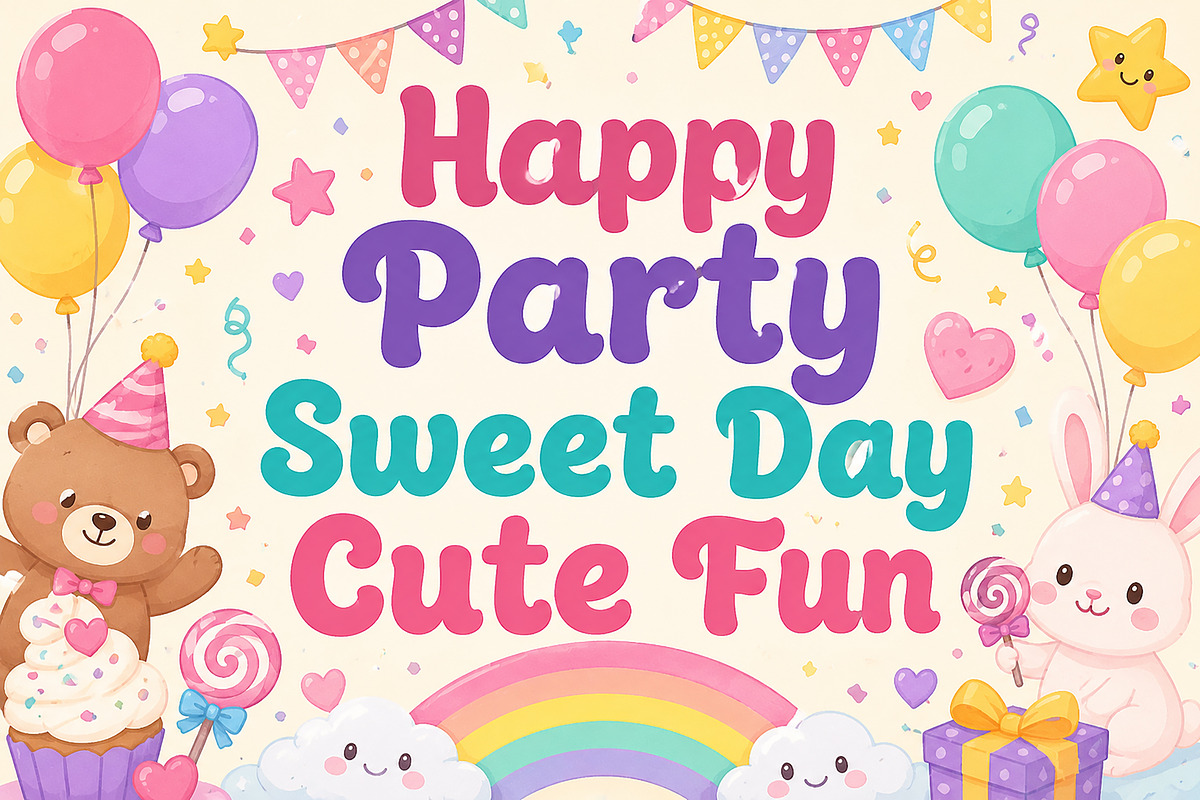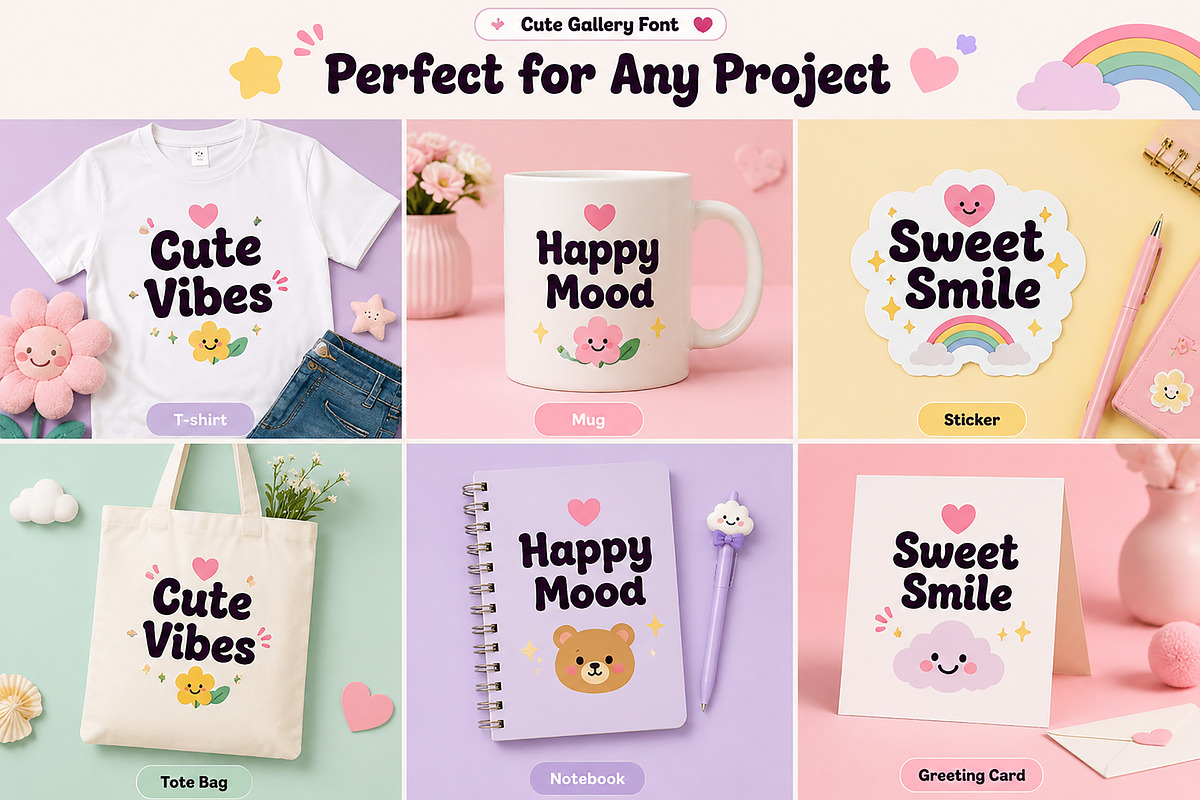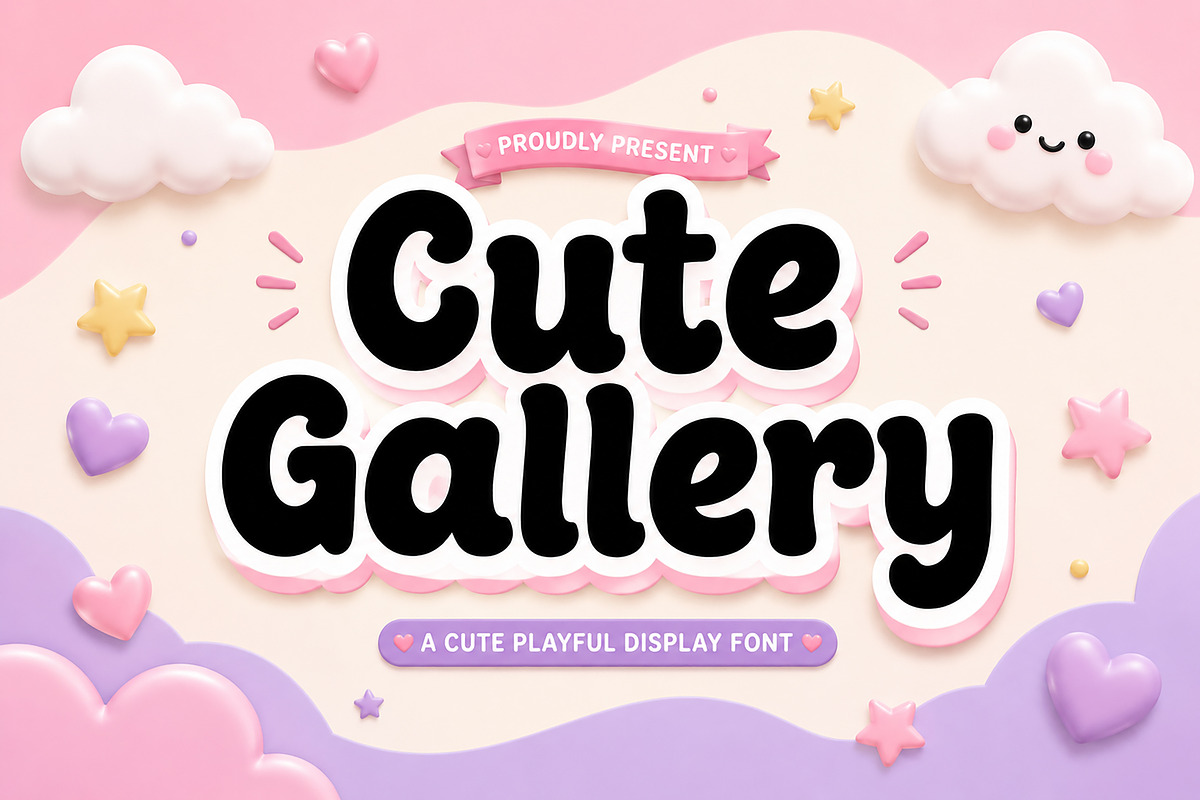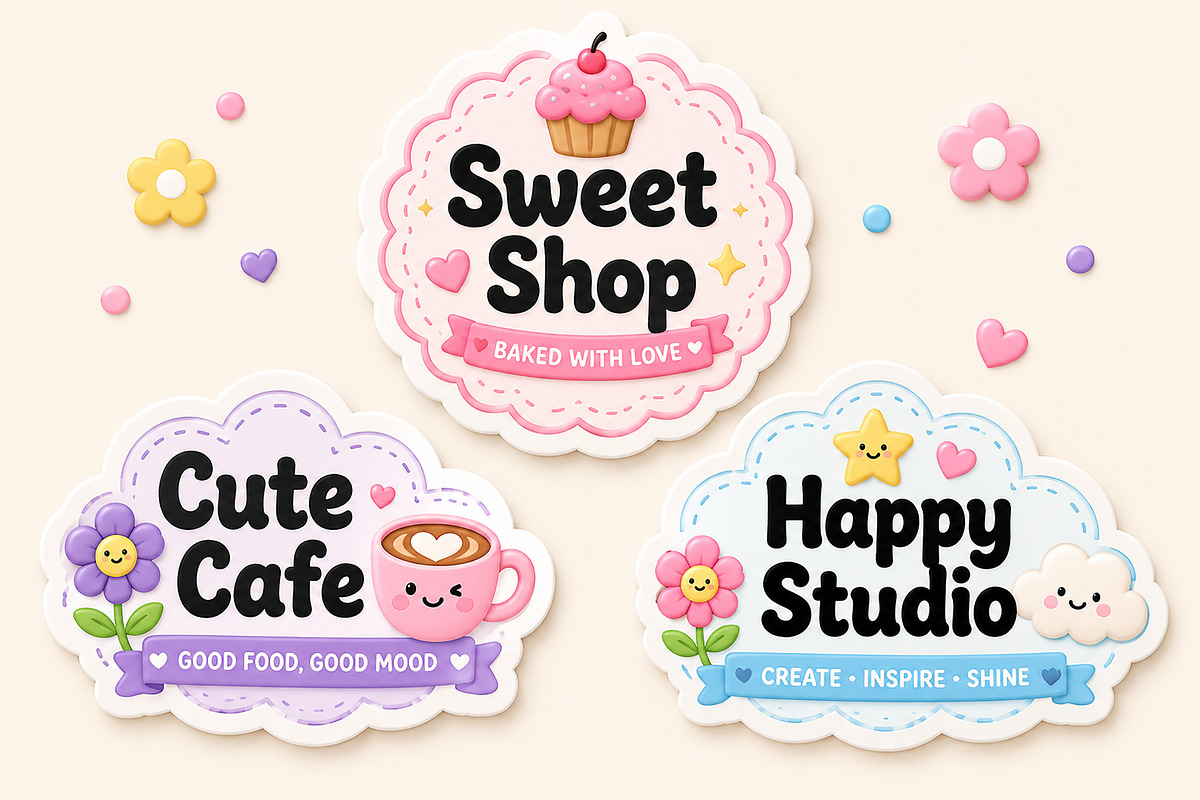
Cute Gallery
Cute Gallery – Cute Playful Display Font
Cute Gallery is a sweet and playful display font with a bubbly, friendly, and cheerful personality. Designed to bring joy and creativity to your projects, this font features smooth rounded shapes and adorable letterforms that instantly capture attention.
Perfect for kids' designs, birthday invitations, stickers, Cricut projects, greeting cards, social media graphics, product packaging, branding, logos, posters, classroom decorations, and handmade craft projects.
Whether you're creating a fun party invitation, a cute bakery logo, or a colorful merchandise design, Cute Gallery adds a charming and delightful touch to every creation.
Uppercase & Lowercase Letters
Smooth Rounded Letterforms
Easy to Read
Kids Branding
Birthday Invitations
Party Posters
Stickers & Labels
Greeting Cards
T-Shirt Designs
Tote Bags
Mug Designs
Social Media Posts
YouTube Thumbnails
School Projects
Classroom Decor
Cricut & Silhouette Crafts
Cute Packaging Design
Handmade Business Branding
Bring happiness, sweetness, and playful charm to your designs with Cute Gallery!